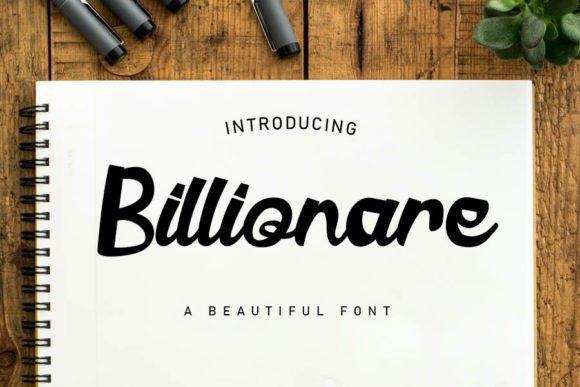
The Billionare Font: A Fun and Playful Addition to Your Design Toolkit
I’ll never forget the time I was working on a project for a children’s birthday party invitation. I had all the design elements ready – the colors, the graphics, and the text – but something was missing. The font I was using just didn’t have the right vibe. It was too serious, too boring. I needed something that would capture the playful and cheerful essence of the party. That’s when I stumbled upon the Billionare font.
This fun, bold, and cheerful display font quickly became my go-to for the project. Its chubby characters and lighthearted nature made it the perfect fit. And let me tell you, it was a game-changer! The invitation turned out amazing, and the client loved it. From that day on, I made sure to have the Billionare font in my design library.
An Honest Review: What I Love and What I Don’t
- ✅ Unique and playful design: The Billionare font has a one-of-a-kind look that’s sure to grab attention.
- ✅ Easy to read: Despite its bold and chunky design, the font is surprisingly easy to read, even in smaller sizes.
- ✅ Versatile: The font comes with a range of OpenType features, glyphs, and stylistic alternates, making it suitable for a variety of design projects.
- ✅ Fun to use: Let’s be honest, the Billionare font is just plain fun to use! It’s the perfect way to add some personality to your designs.
- ⚠️ Limited use cases: While the Billionaire font is amazing for certain projects, it may not be the best fit for more formal or professional designs.
- ⚠️ Can be overwhelming: If not used carefully, the font’s bold design can be overwhelming. It’s essential to balance it with other design elements.
The Story Behind the Billionare Font
The Billionare font was designed by a team of creatives who wanted to create a font that would bring a smile to people’s faces. They drew inspiration from classic comic books, playful street art, and the whimsical world of children’s illustrations. The result is a font that’s fun, bold, and cheerful – perfect for designs that need a bit of personality.
Q: What type of projects is the Billionare font best suited for?
A: The Billionare font is perfect for designs that need a playful and cheerful touch, such as children’s party invitations, social media graphics, and branding materials for kids’ products.
Q: Is the Billionare font easy to read?
A: Yes, despite its bold and chunky design, the Billionare font is surprisingly easy to read, even in smaller sizes.